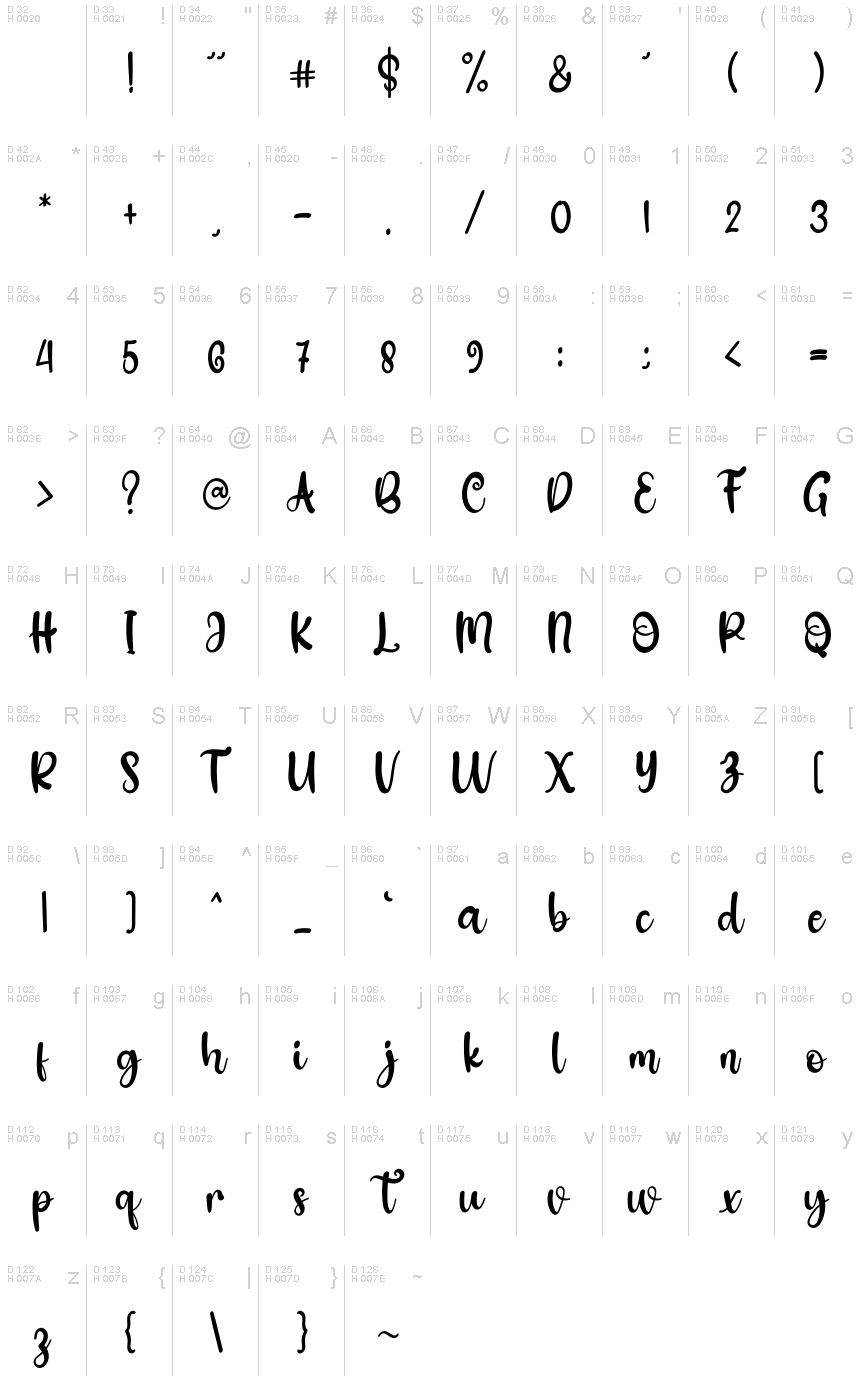
Bright
Bright, a captivating calligraphy font designed by Harlek Studio, exudes elegance and sophistication. With its graceful strokes and flowing curves, this font adds a touch of charm to any project.
Its thin width pairs perfectly with wedding invitations, creating a romantic atmosphere. The semi-bold font typeface is ideal for logo designs, bringing a sense of uniqueness and creativity. Bright's versatility shines through in digital marketing materials like social media graphics, giving brands an eye-catching edge.
Whether it's for formal or artistic projects, Bright is the epitome of refined beauty.